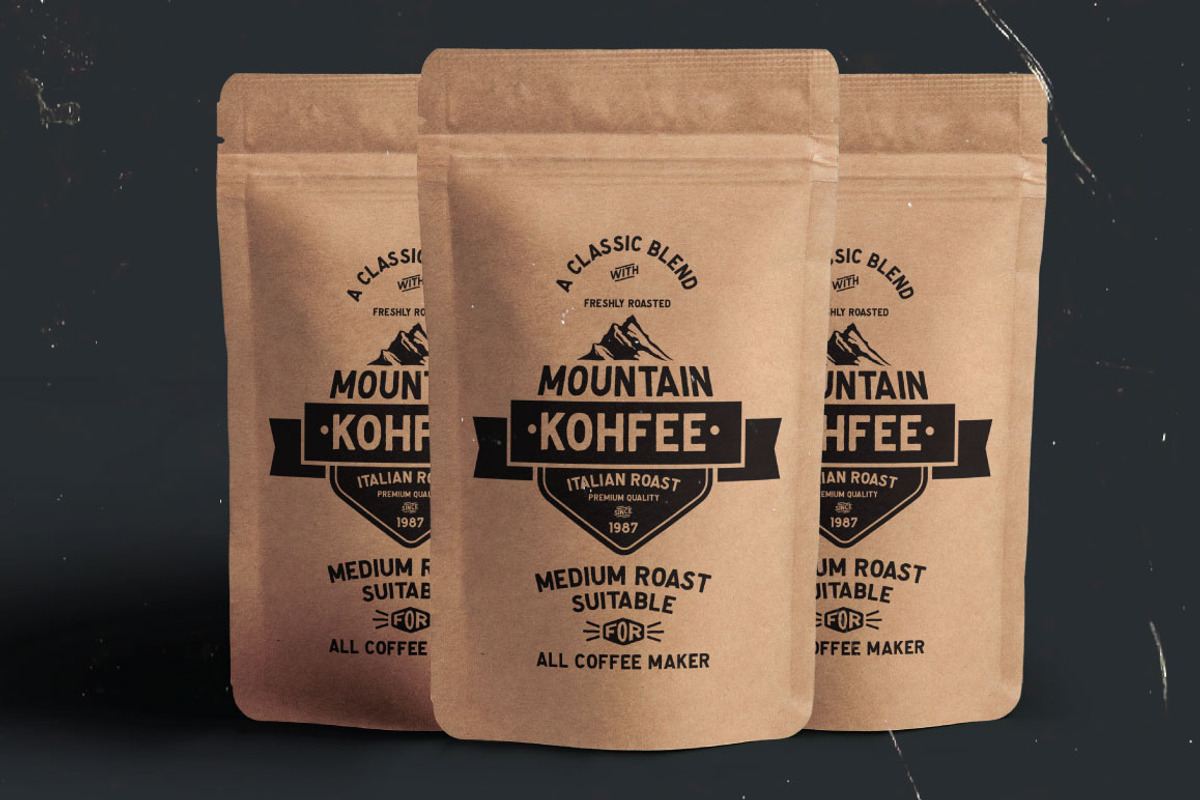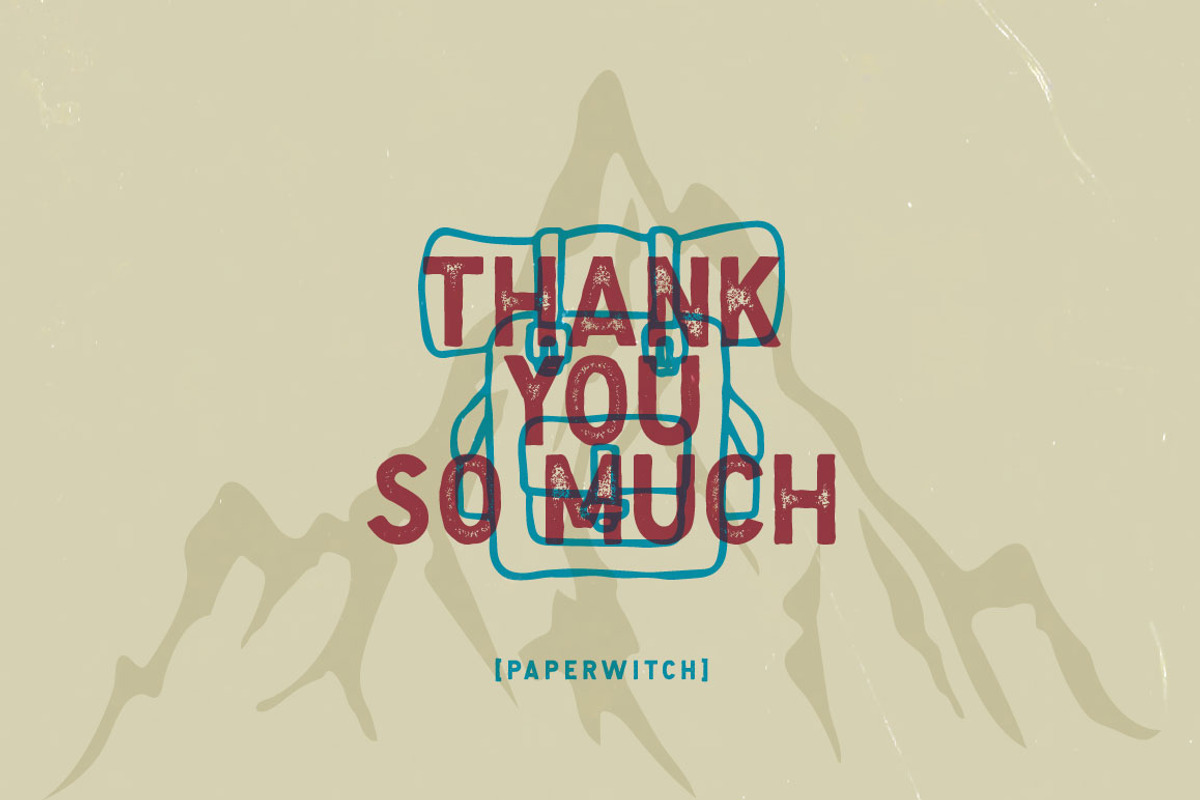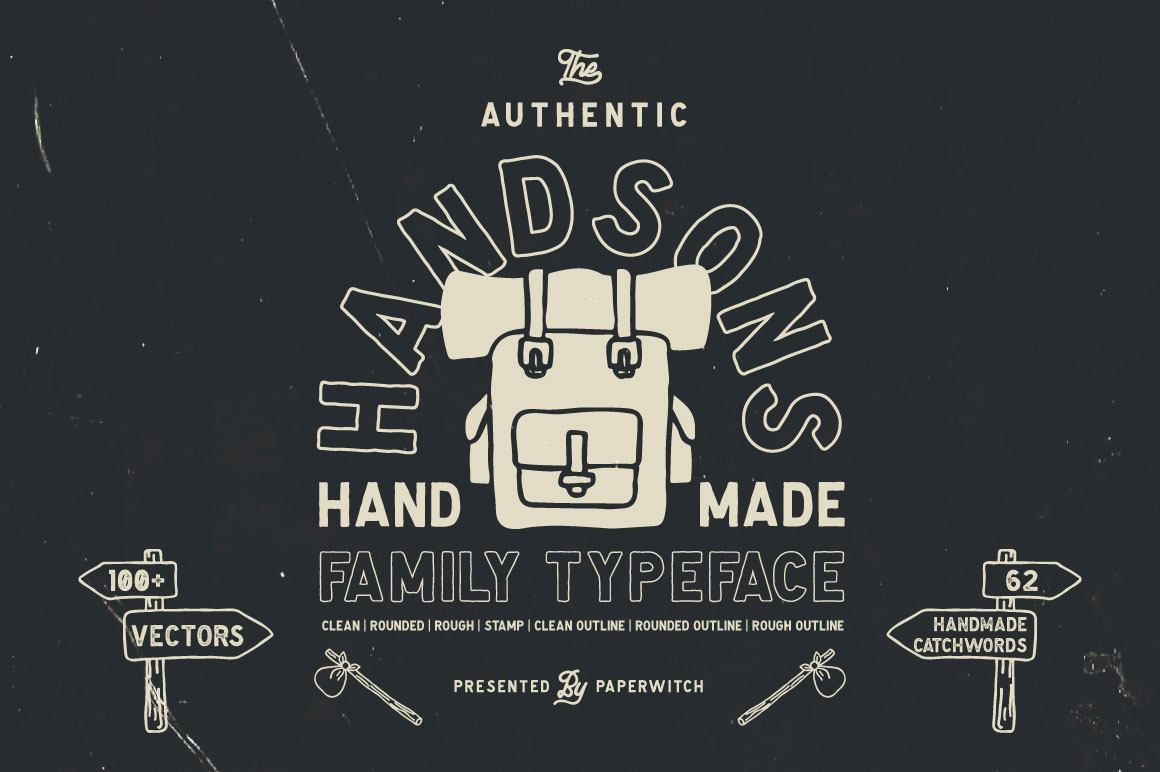
Handsons Typeface
Handsons Typeface is a family font consisting of 7 versions. This font has a strong character, so it can be used for design that requires high readability. Posters, Labels, Book Title, and more, are perfect for using this font.